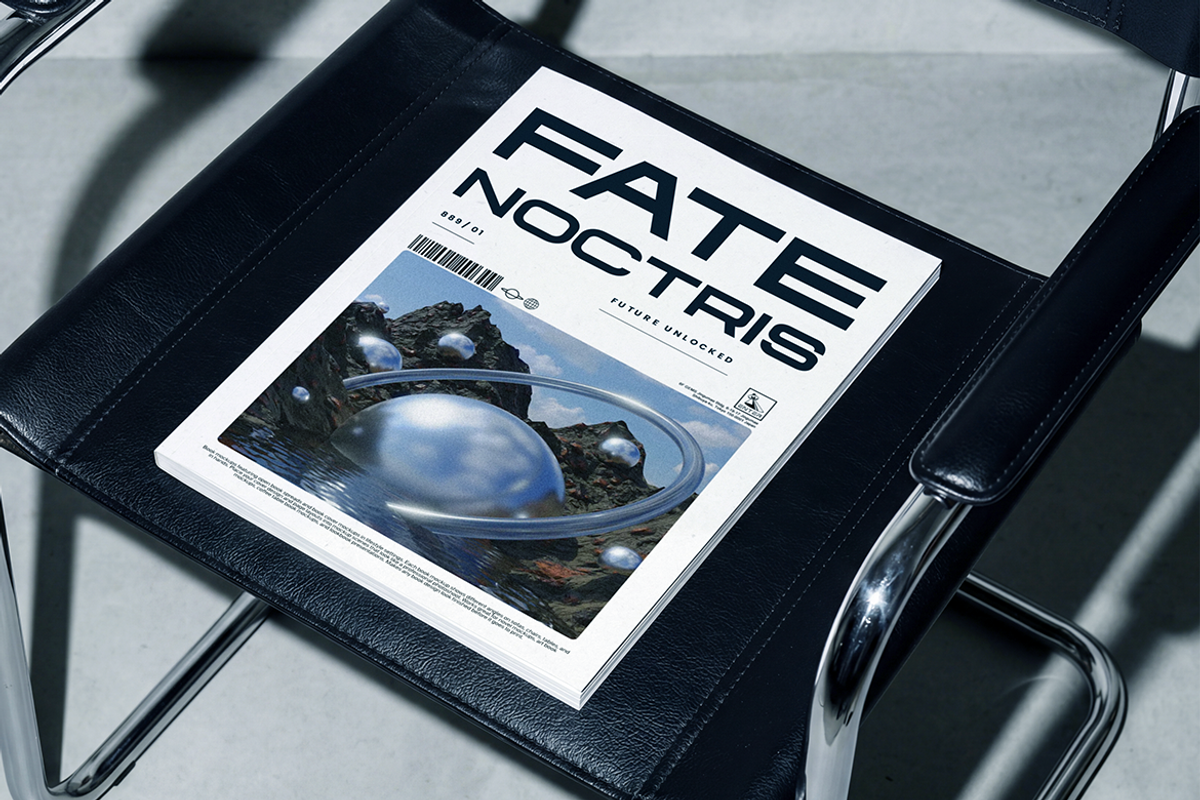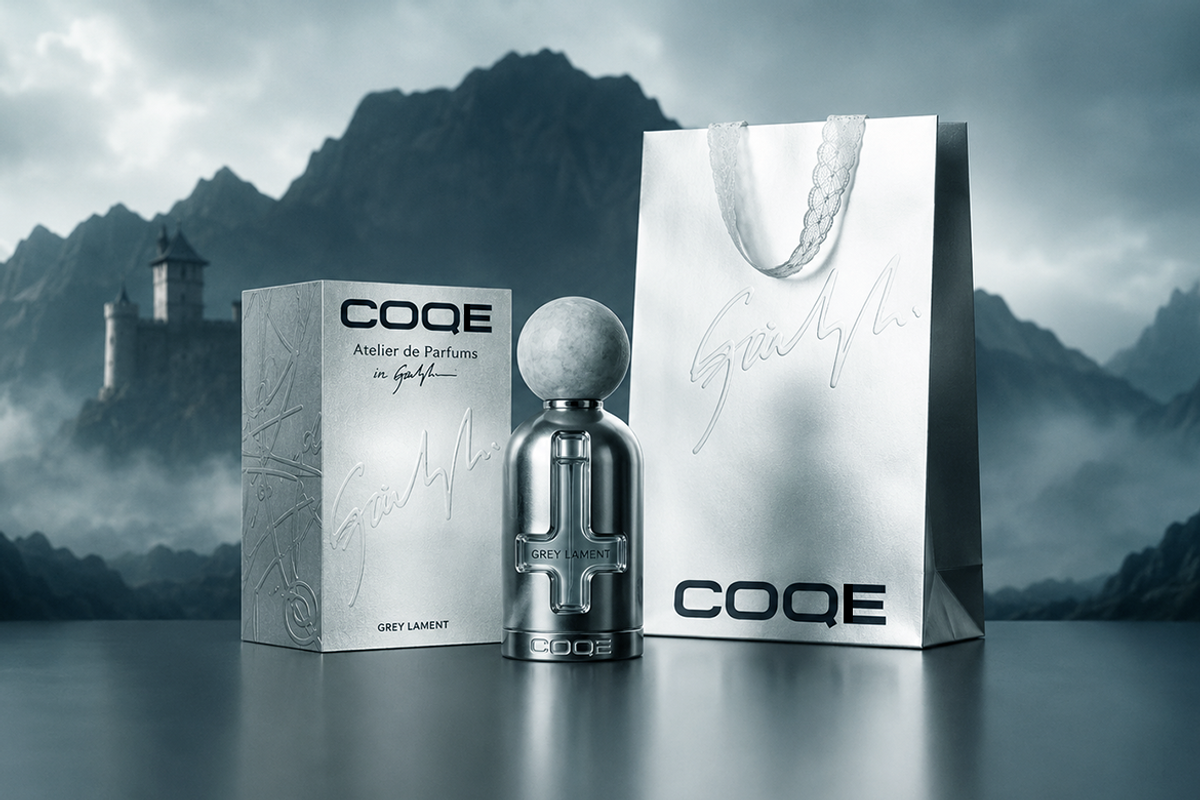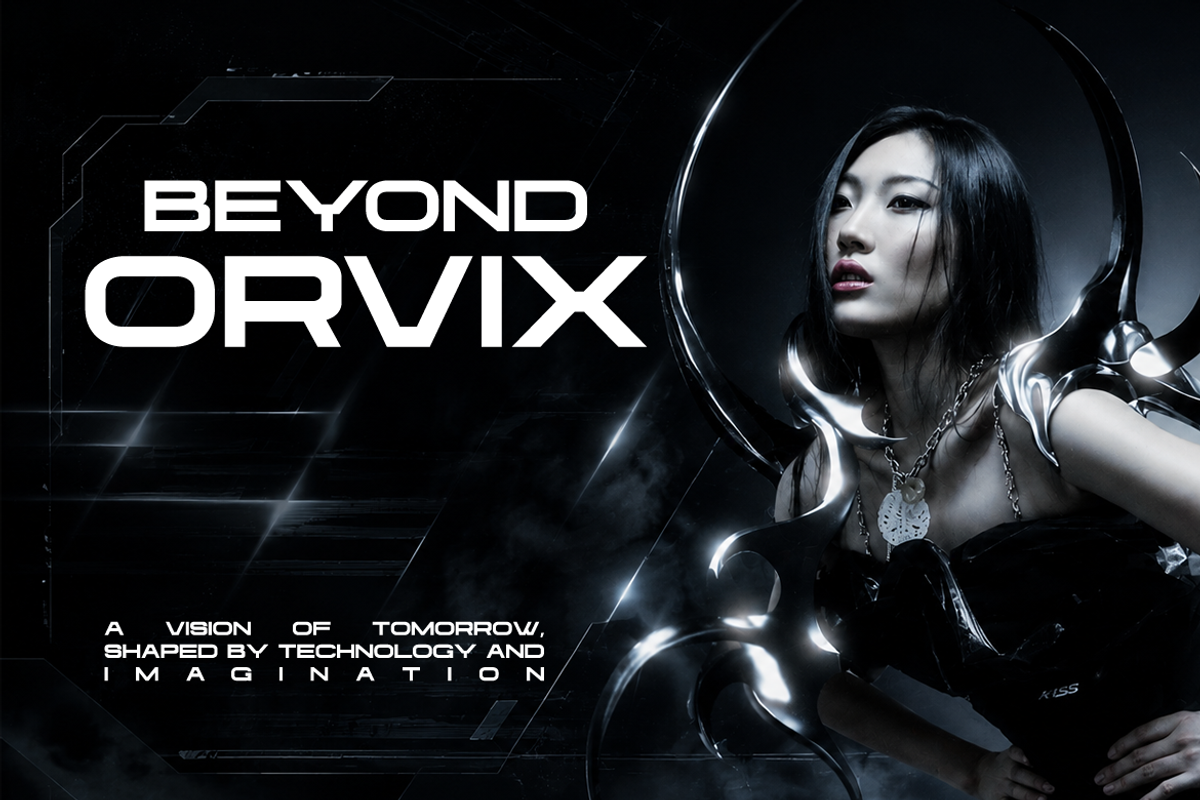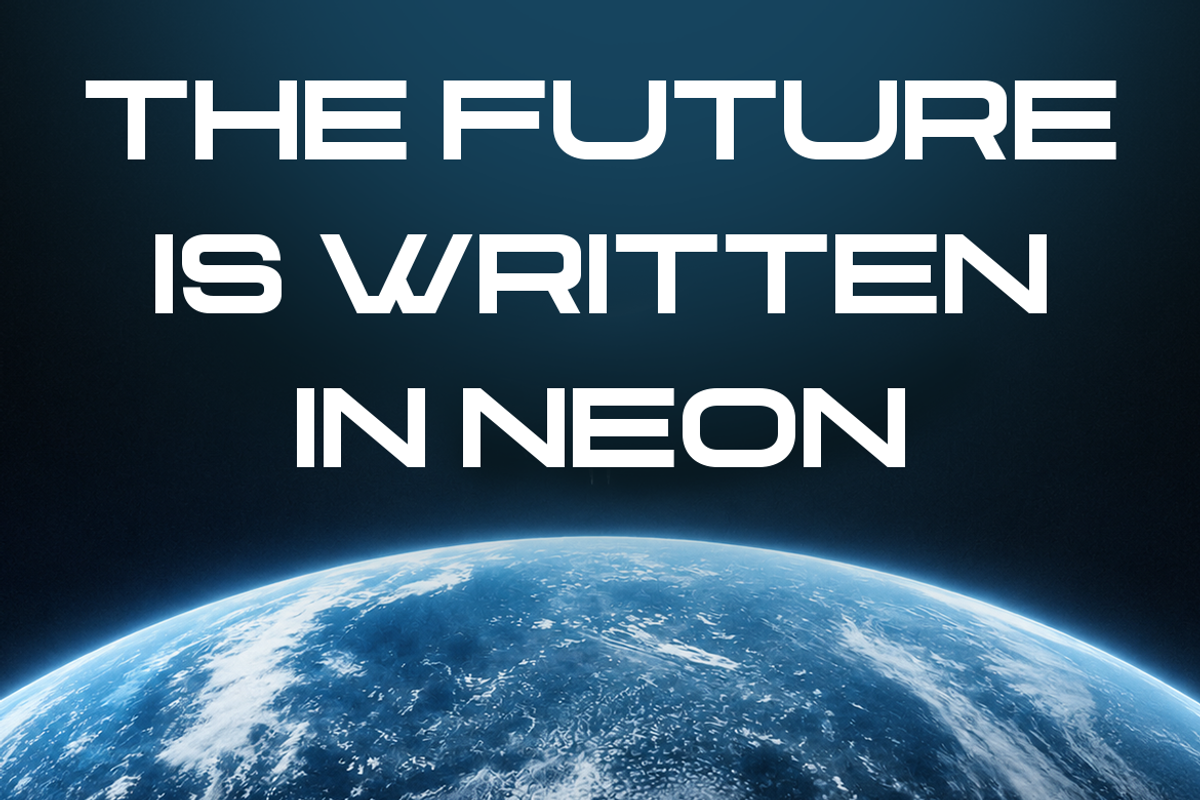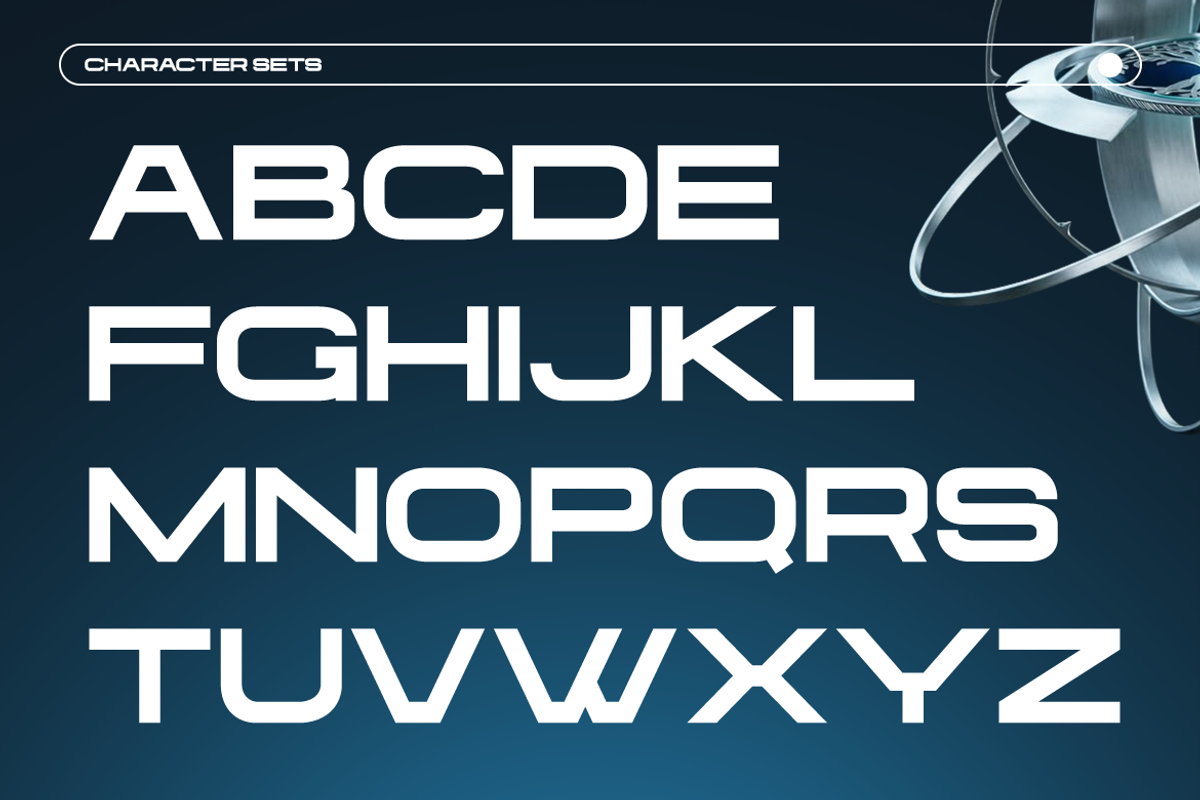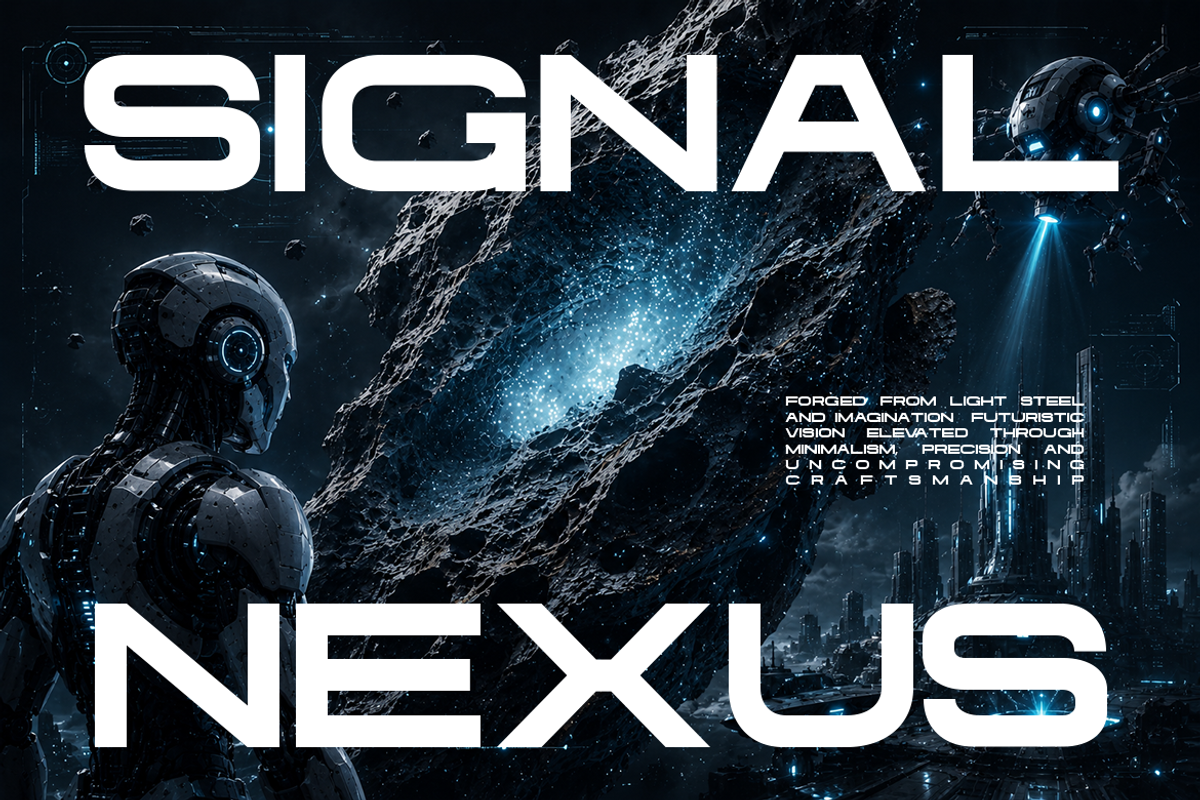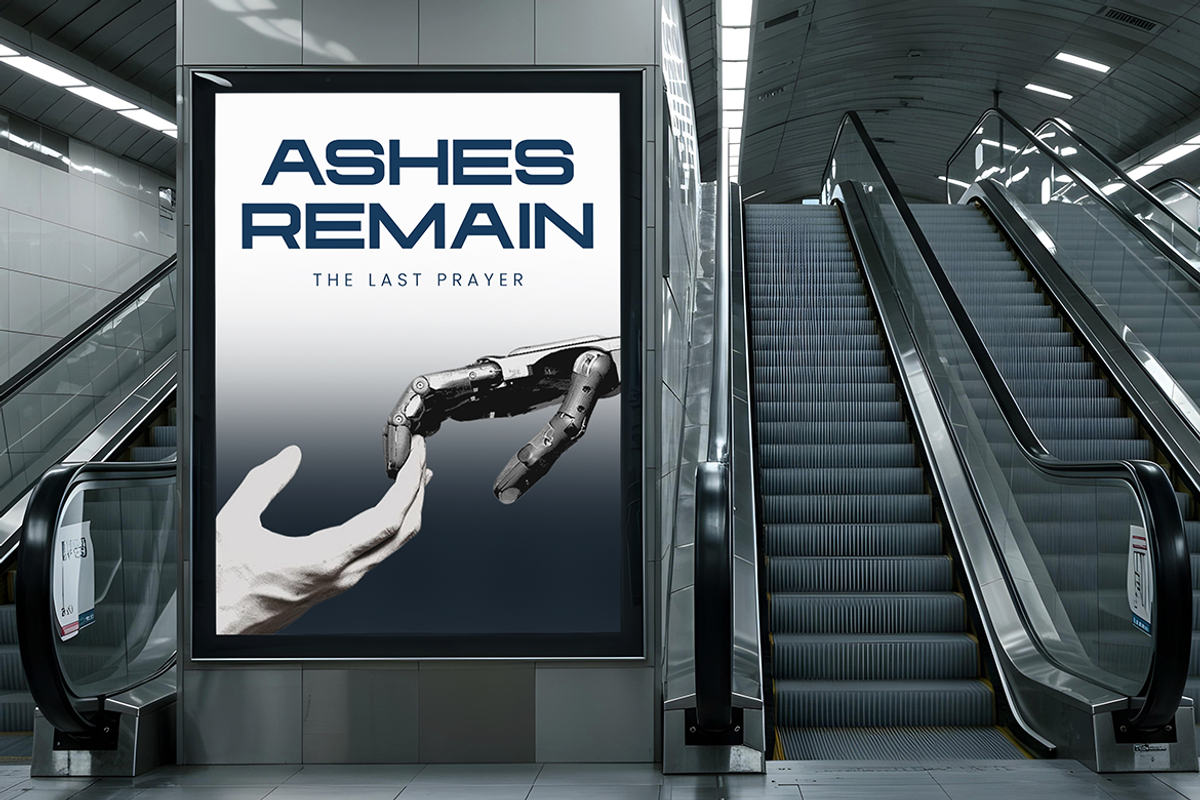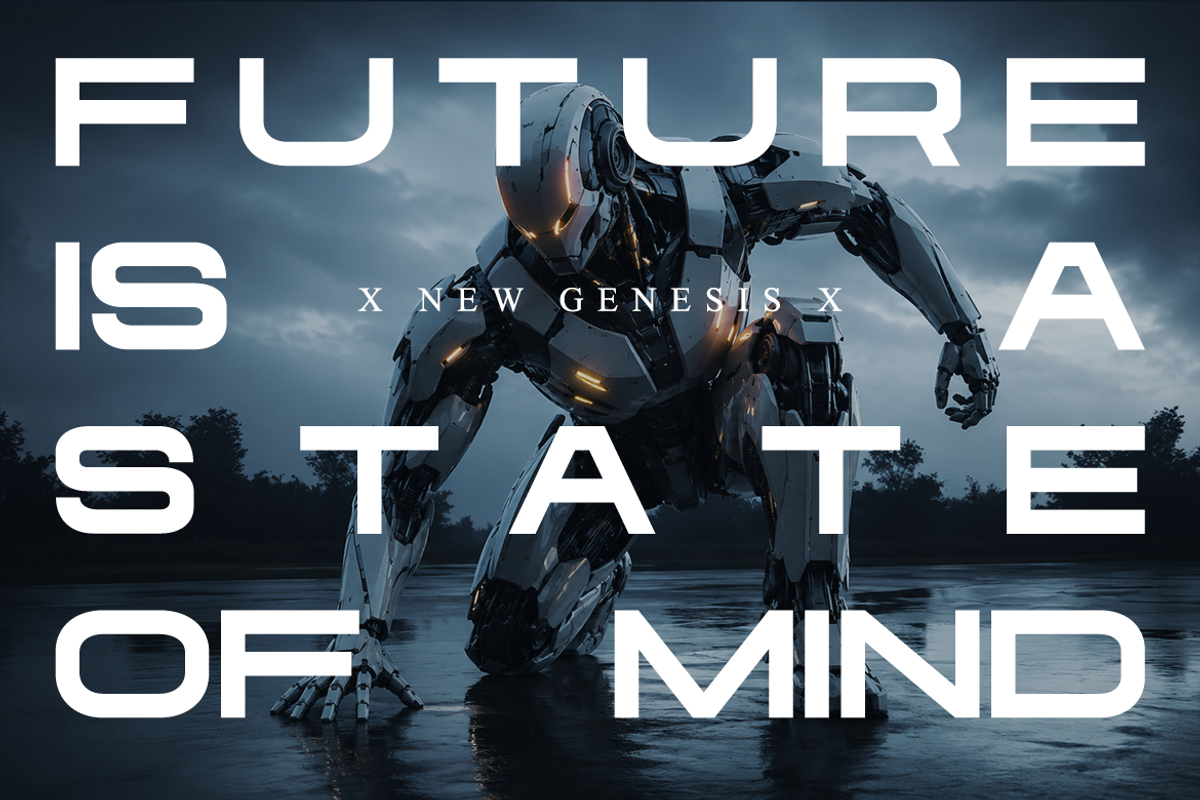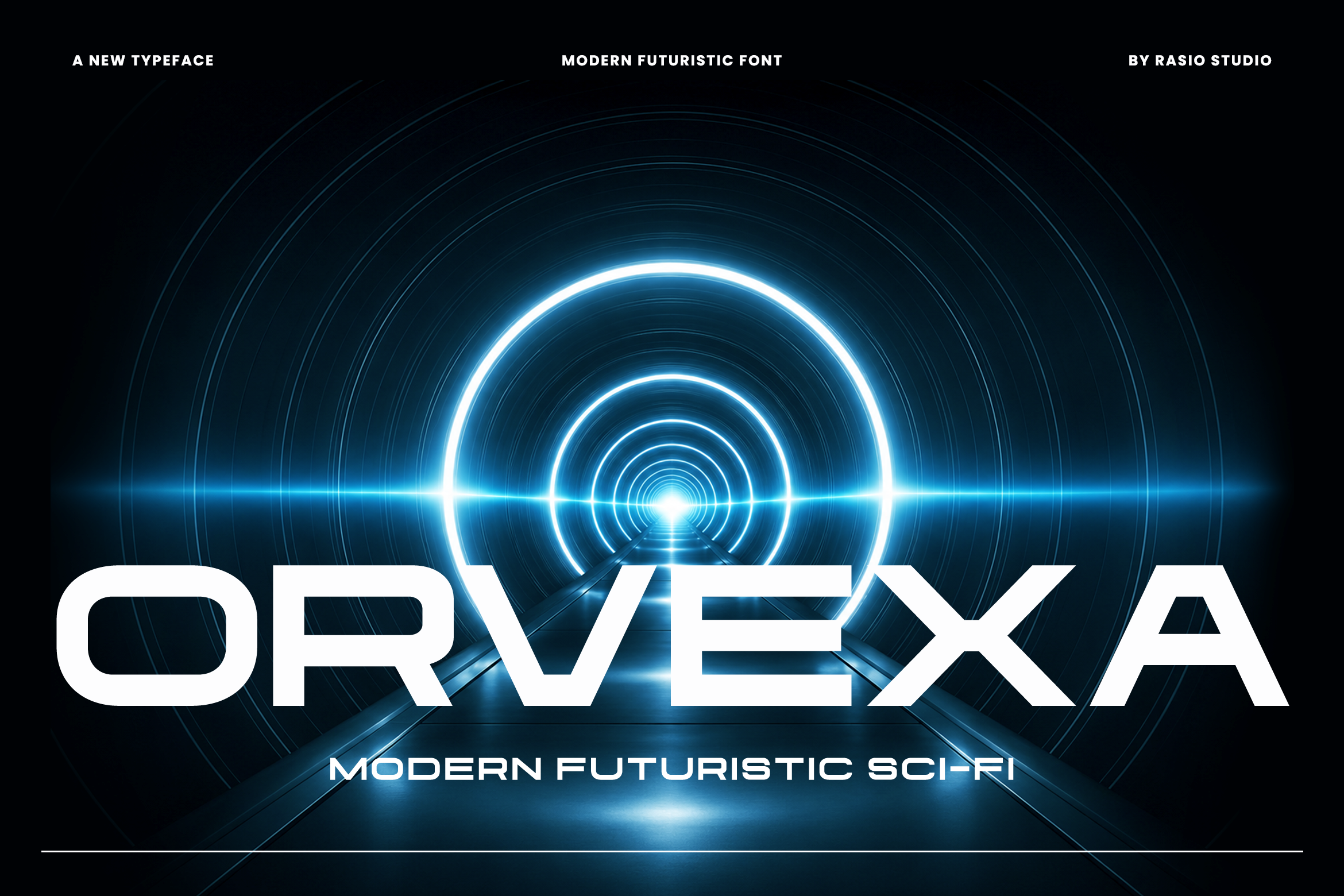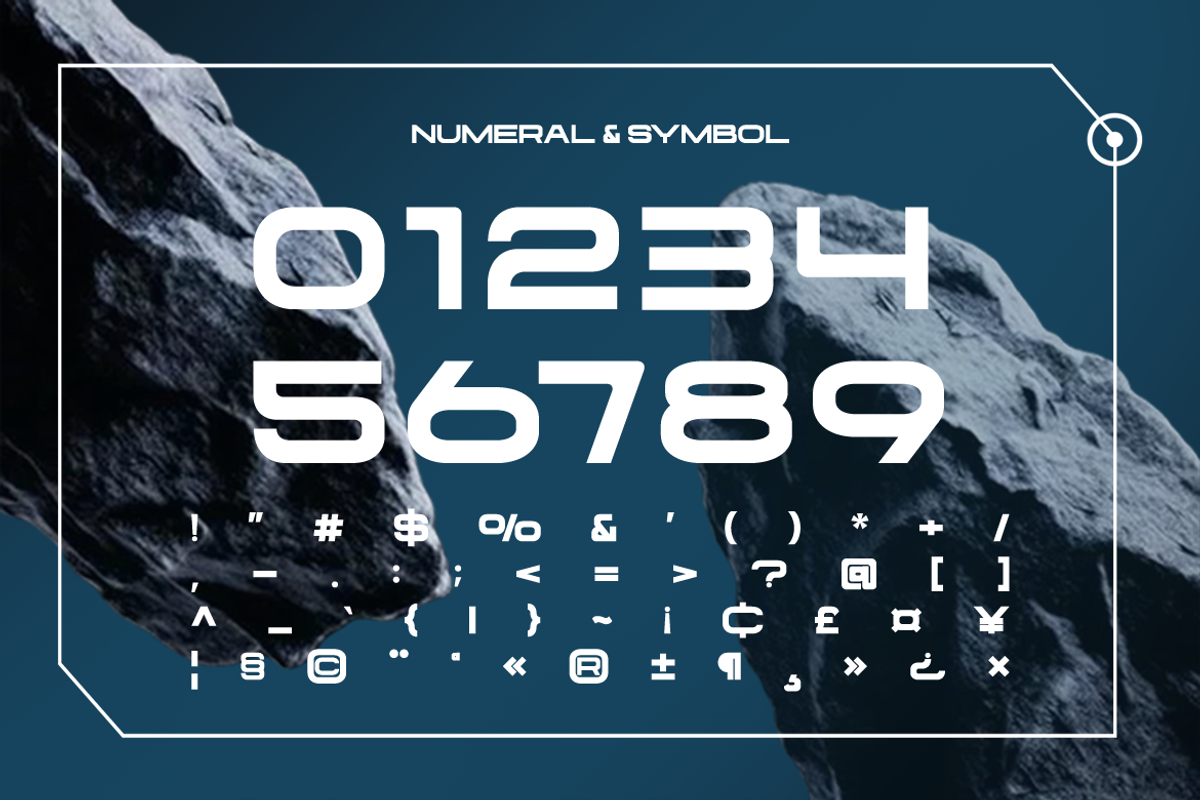
Orvexa Modern Futuristic Sci-Fi Font
Orvexa Modern Futuristic Sci-Fi Font is a bold geometric display typeface inspired by advanced technology, futuristic architecture, and science fiction interfaces. Built with sharp angular cuts, wide proportions, and precision-engineered letterforms, the typeface creates a powerful visual identity that feels innovative, high-tech, and unmistakably modern. Its distinctive construction combines clean horizontal terminals, squared curves, and balanced geometric shapes to produce a sleek industrial aesthetic while maintaining excellent readability in large-format typography.
Each character is carefully crafted using consistent stroke thickness and controlled spacing to deliver a stable visual rhythm across logos, headlines, and digital interfaces. The wide stance and futuristic detailing create strong recognition without relying on excessive ornamentation, allowing the typeface to remain versatile across a broad range of creative applications. The generous counters and simplified geometric forms improve legibility on both print and screen, making Orvexa suitable for branding systems, user interfaces, promotional graphics, motion design, and technology-focused visual communication.
Futuristic geometric design with bold architectural letterforms
Precision-cut angles combined with softened corners for a sleek sci-fi aesthetic
Consistent stroke weight and clean construction for modern digital readability
Wide spacing and balanced proportions that enhance large display typography
Designed for high-impact branding, gaming, technology, and cinematic visual identities
Sci-fi branding, futuristic logos, and technology identity systems
Gaming titles, esports graphics, and streaming channel branding
User interface concepts, HUD displays, and digital product visuals
Movie posters, science fiction book covers, and cyberpunk artwork
Technology event promotions, startup branding, and AI presentations
Supports numerals, punctuation, and extensive symbol set